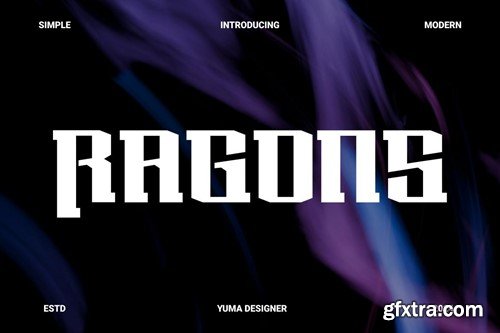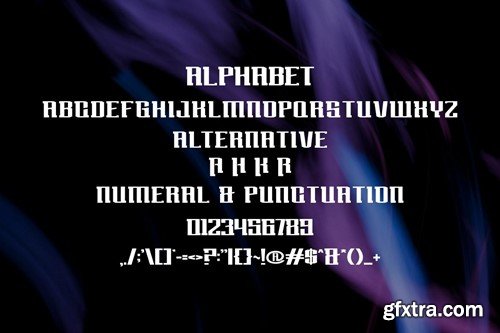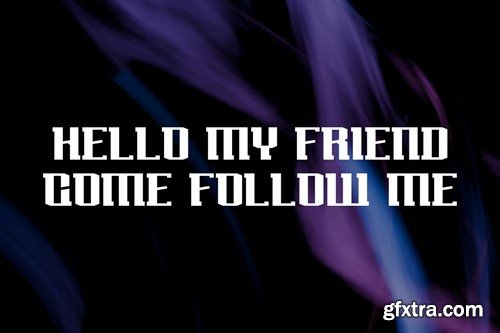
Ragons - a Popular Font
Introducing Ragons Modern Serif Font. Ragons is a modern and simple font, best used as a display for headings, logos, branding, magazines, product packaging and invitations. Ragons come with clean lines and smooth curves give any project an extra touch of class. What you get: Thank you.